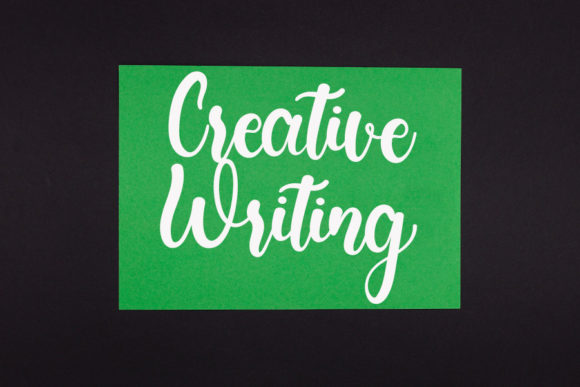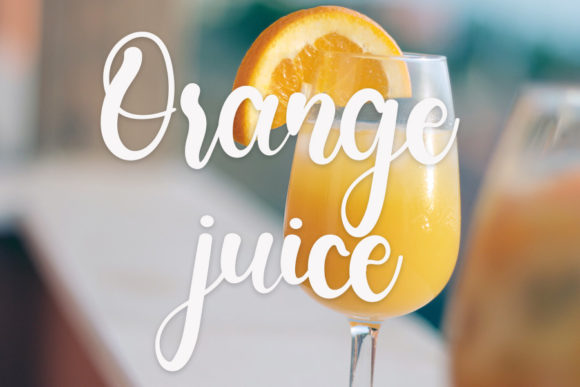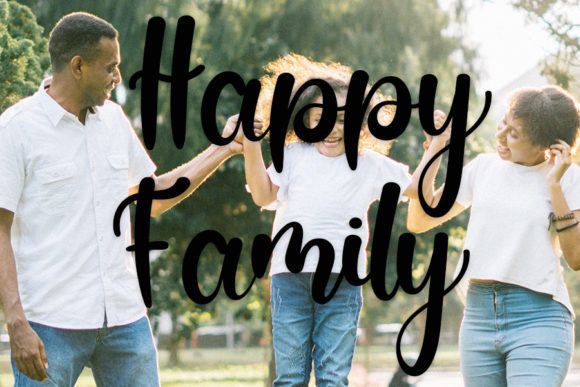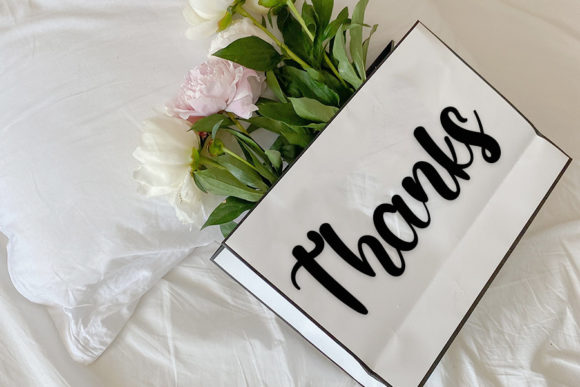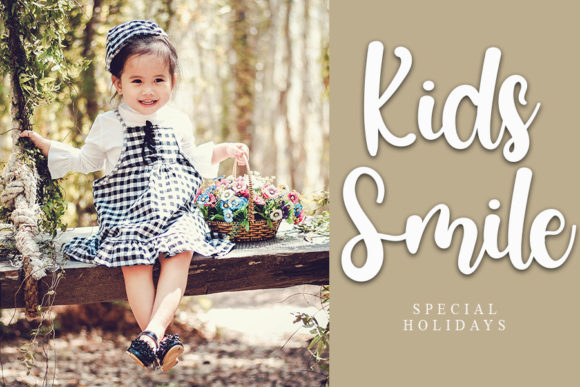
Strong Girl Font
About Strong Girl Font
Strong Girl is a welcoming handwritten font, intricately crafted to secure its place as an instant favorite. More than just a typeface, it embodies a careful design that maintains its classy calligraphic influences while exuding a contemporary and fresh feel. This font strikes a harmonious balance between timeless elegance and modern charm, making it a versatile and endearing choice for a wide range of design projects.
At its essence, Strong Girl radiates a friendly and approachable vibe. Through a meticulous design process, each stroke carries a sense of warmth, making it an ideal choice for projects that aim to establish a personal connection with the audience. The handwritten style adds an intimate touch, encouraging users to engage with the text on a more profound level.
The calligraphic influences in Strong Girl add a touch of sophistication to its overall appeal. Each curve and line is thoughtfully designed, contributing to a harmonious visual experience. This infusion of classic calligraphy enhances the font’s versatility, allowing it to seamlessly adapt to a variety of design contexts while preserving its intrinsic charm.
What sets Strong Girl apart is its ability to feel both familiar and contemporary. While paying homage to classic calligraphy, it introduces a fresh and modern twist, breathing new life into the handwritten genre. This makes Strong Girl well-suited for diverse applications, from casual and friendly branding to more formal occasions like invitations or stationery.
Strong Girl isn’t just a font; it’s an experience. It’s the warmth of a handwritten note from a friend or the inviting touch in design. Its versatility shines through in its adaptability to different projects, making it a reliable and cherished companion for designers across various industries.
In conclusion, Strong Girl is not
just a typeface; it’s a friendly handwritten font designed to be a true favorite. Its careful balance between classy calligraphic influences and a contemporary, fresh feel makes it a versatile choice for a variety of design projects. Embodying warmth and approachability, Strong Girl invites engagement and connection. Whether used for branding, invitations, or any creative endeavor, Strong Girl stands out as a reliable and cherished companion, adding a touch of timeless elegance and modern charm to your designs.